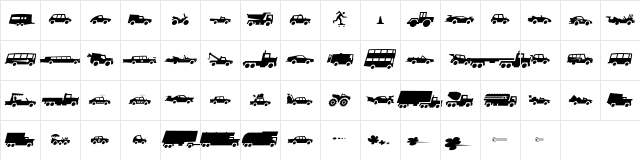
Autofont Regular Free Font
Autofont Regular
Design Context for Autofont
Autofont is a composed and adaptable typeface that performs quietly and consistently across a wide range of design contexts.